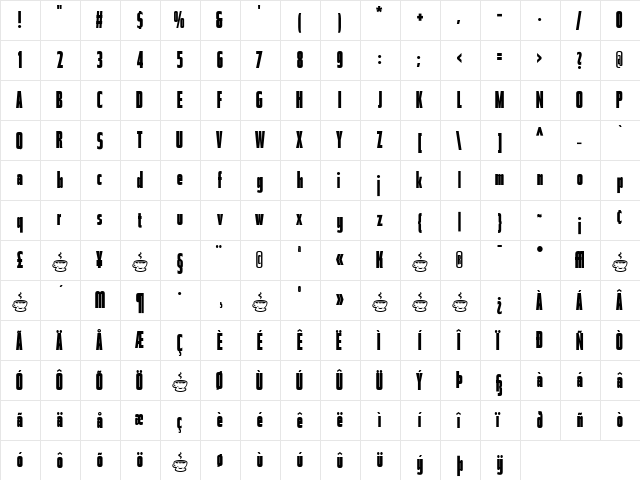
Tasse Regular Font Preview
Tasse Regular
Tasse Regular Font Details
Design Context for Tasse Typeface
Tasse offers clean, dependable letterforms without strong stylistic allegiance, making it a practical choice for designers who need flexibility.